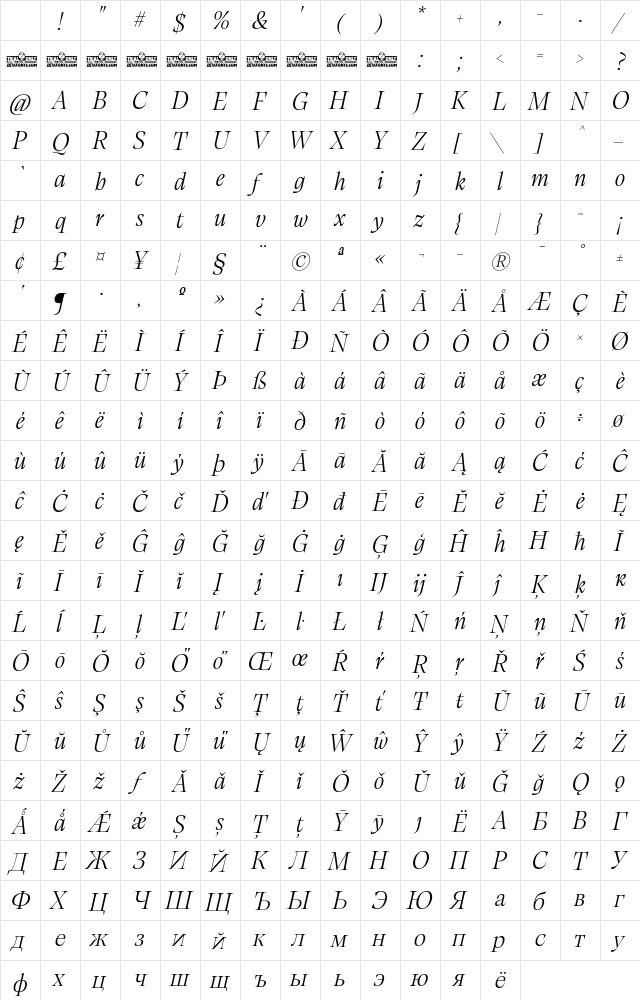
Complete Calvino Grande Trial Light Italic glyph index. Displaying only characters natively supported by Calvino Grande Trial Light Italic font.
Calvino Grande Trial is a composed and adaptable typeface that performs quietly and consistently across a wide range of design contexts. The slanted form adds forward momentum and visual energy. Its slender proportions lend an understated elegance to any composition.
Pro Tip: Use Calvino Grande Trial for emphasis, pull quotes, and subheadings where its slanted energy can add rhythm to the layout.